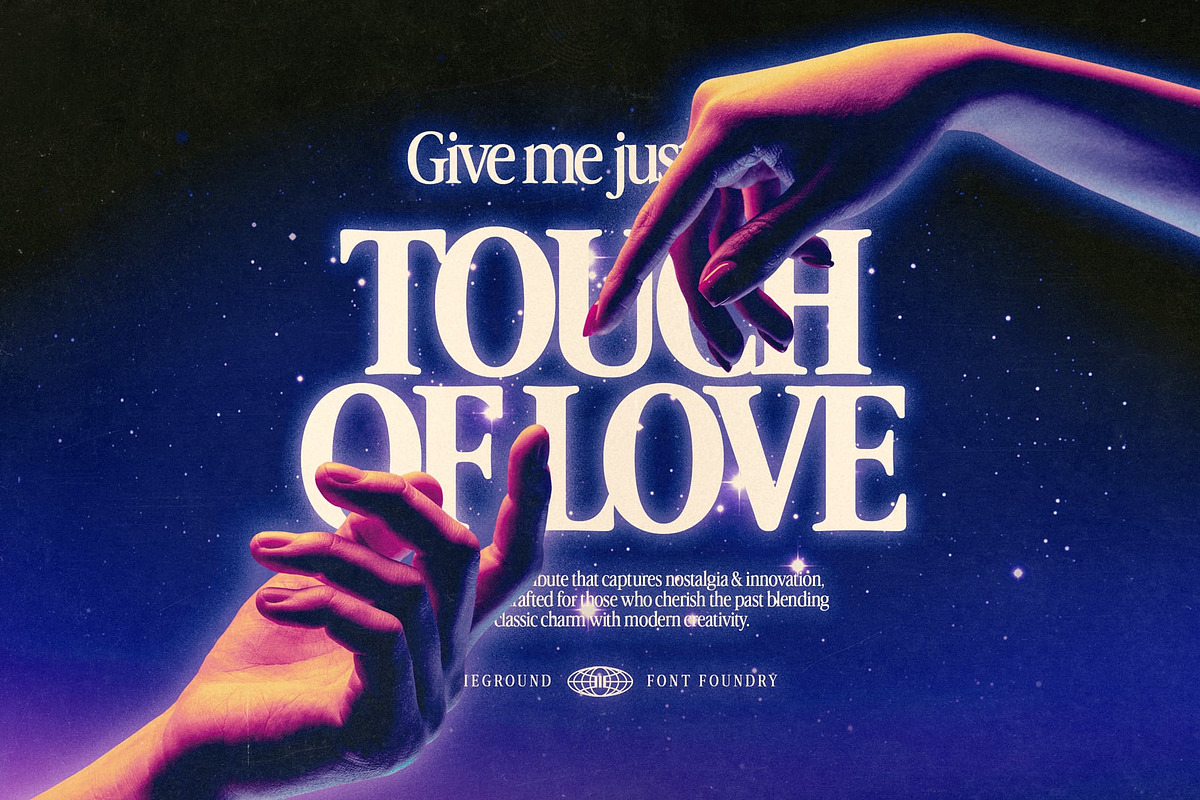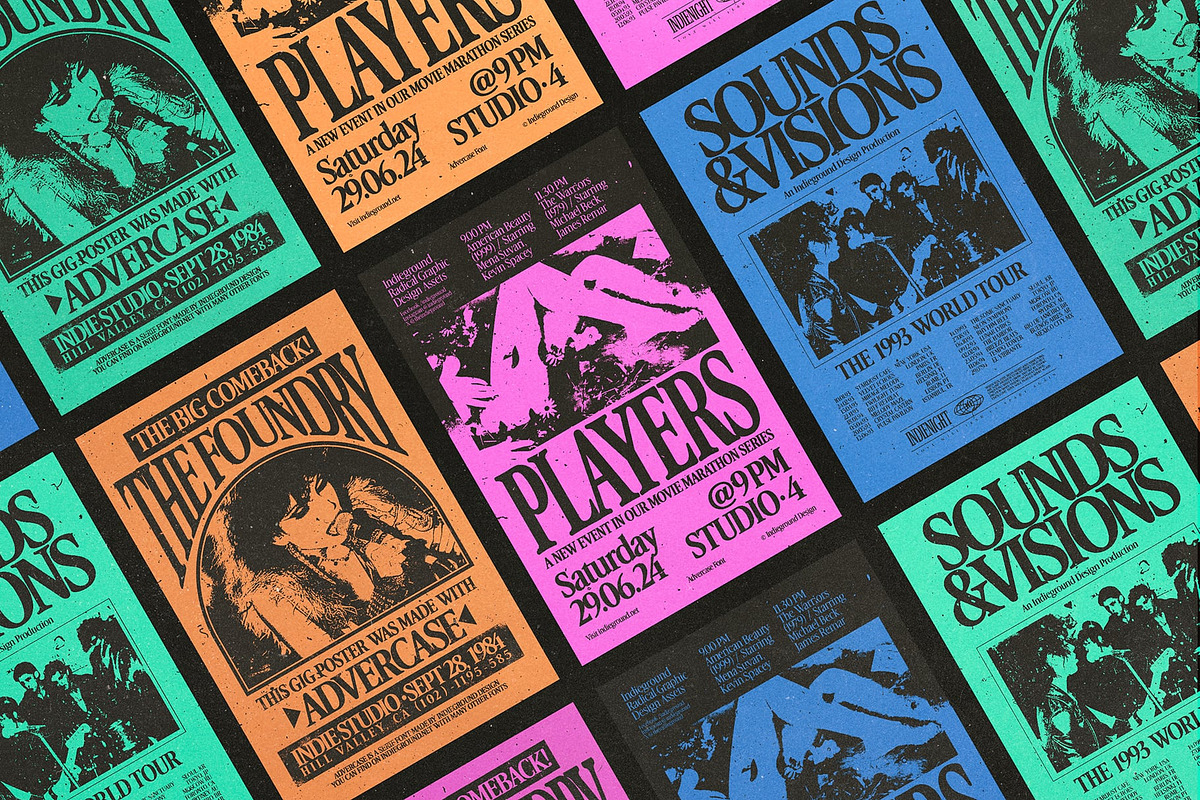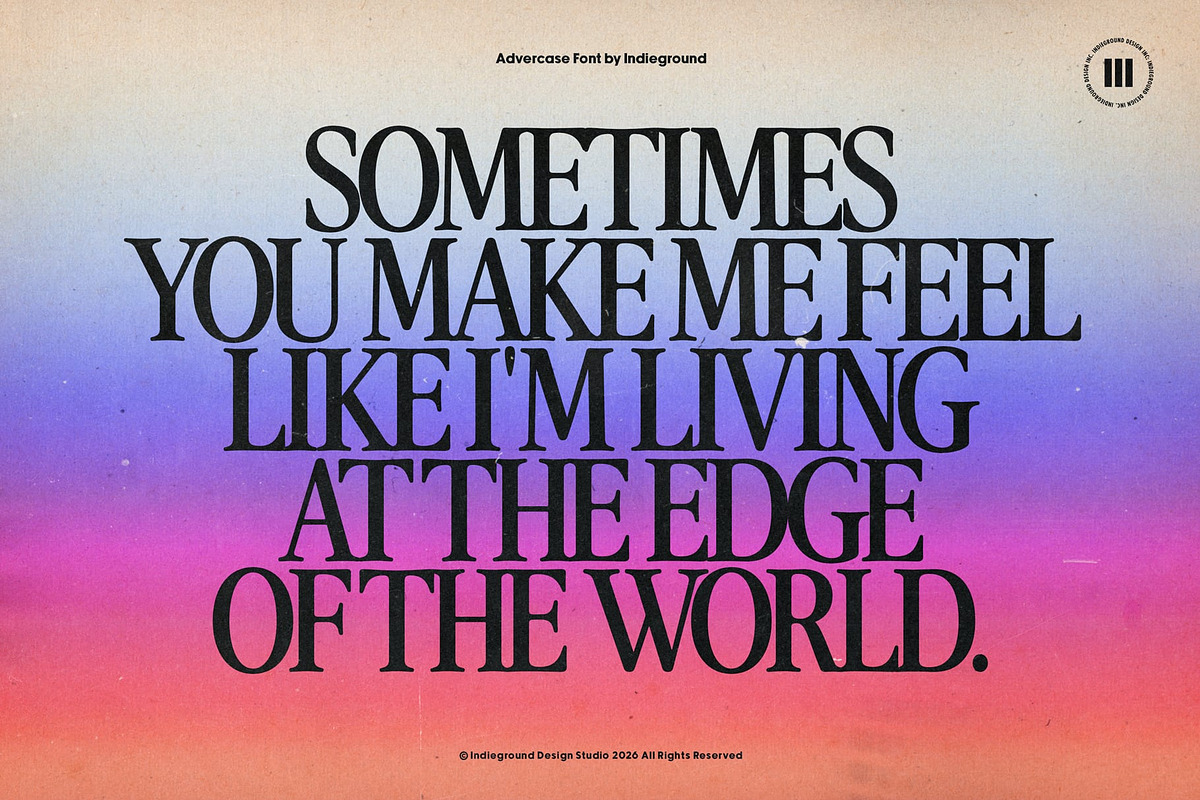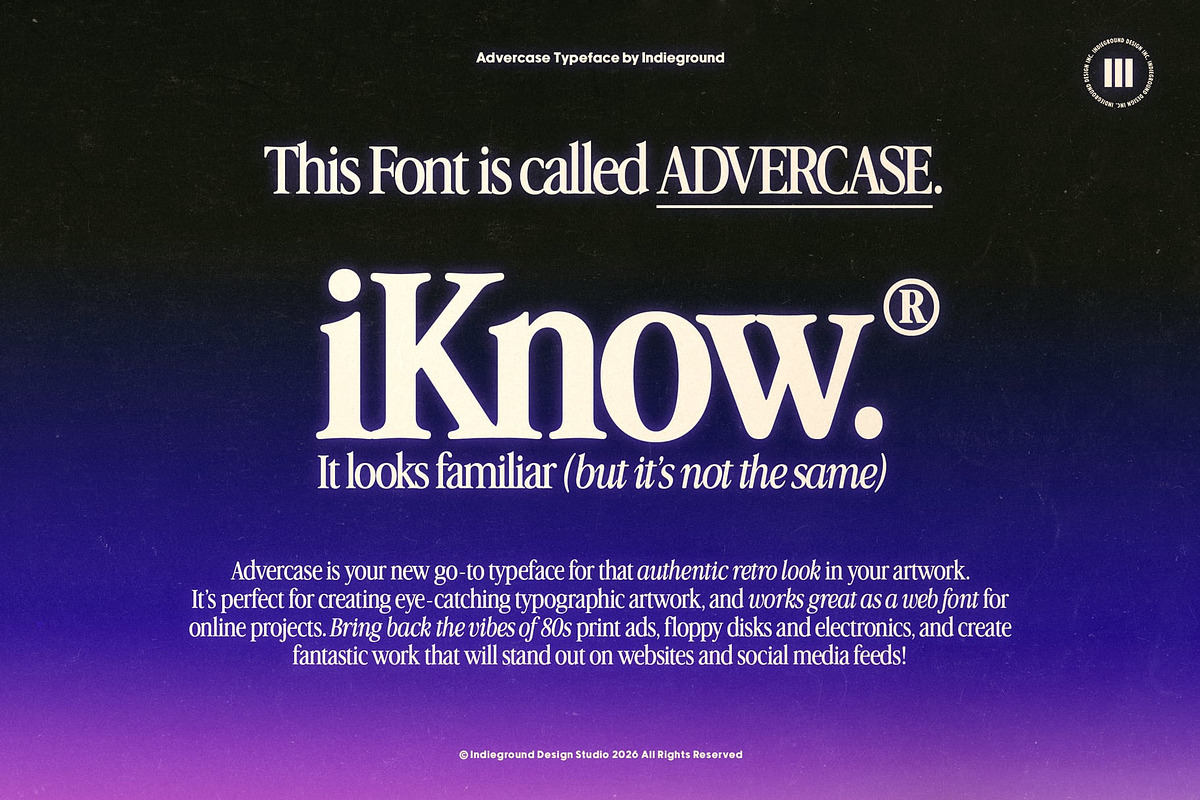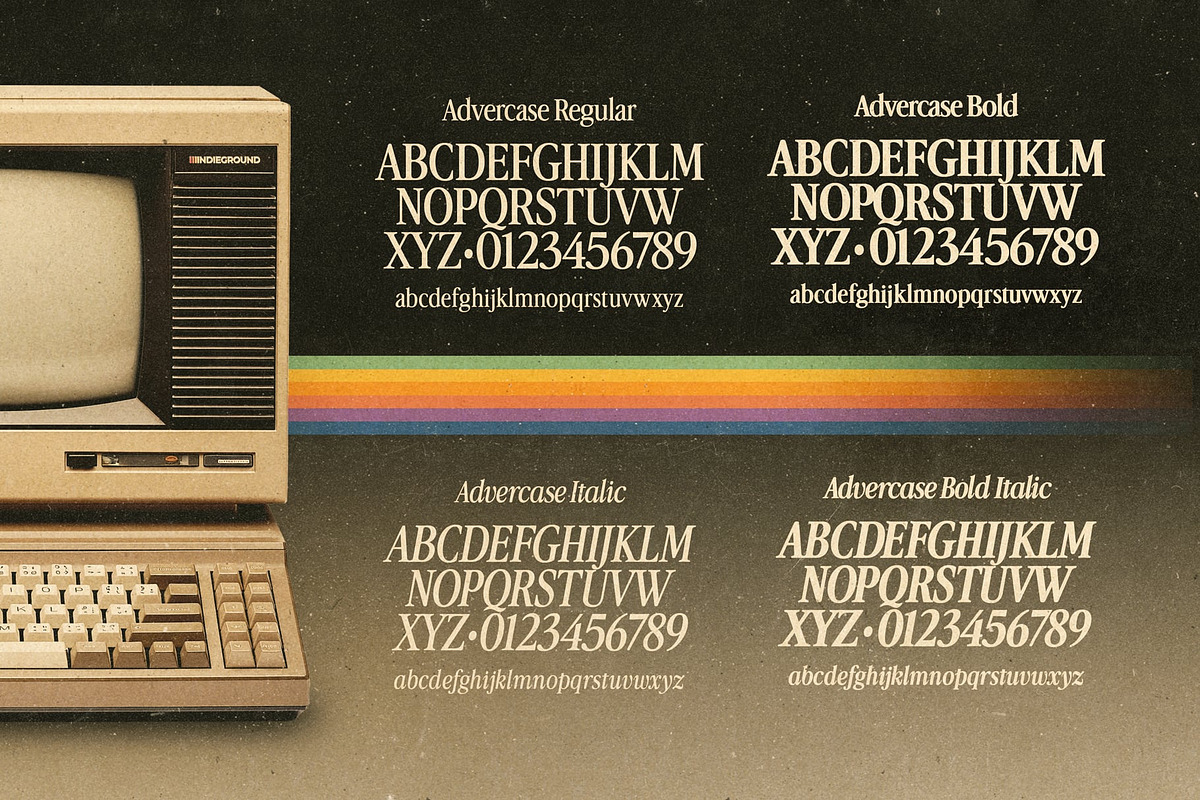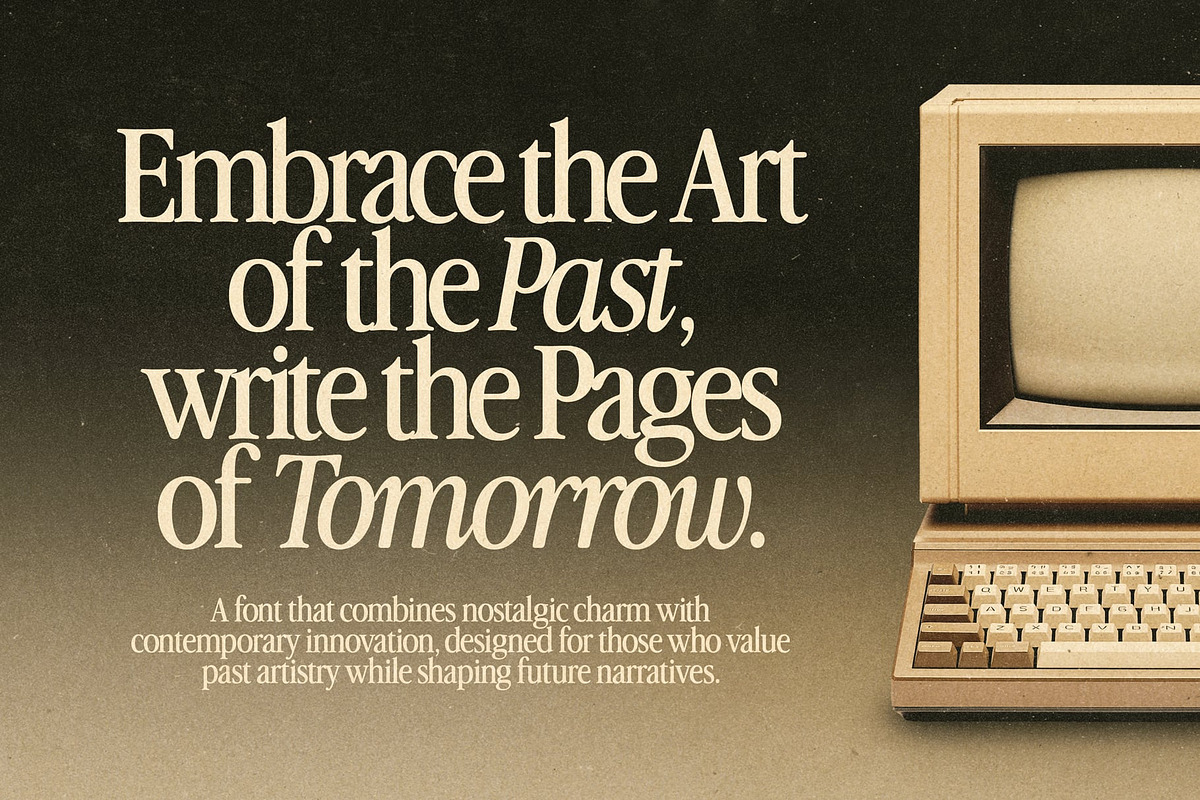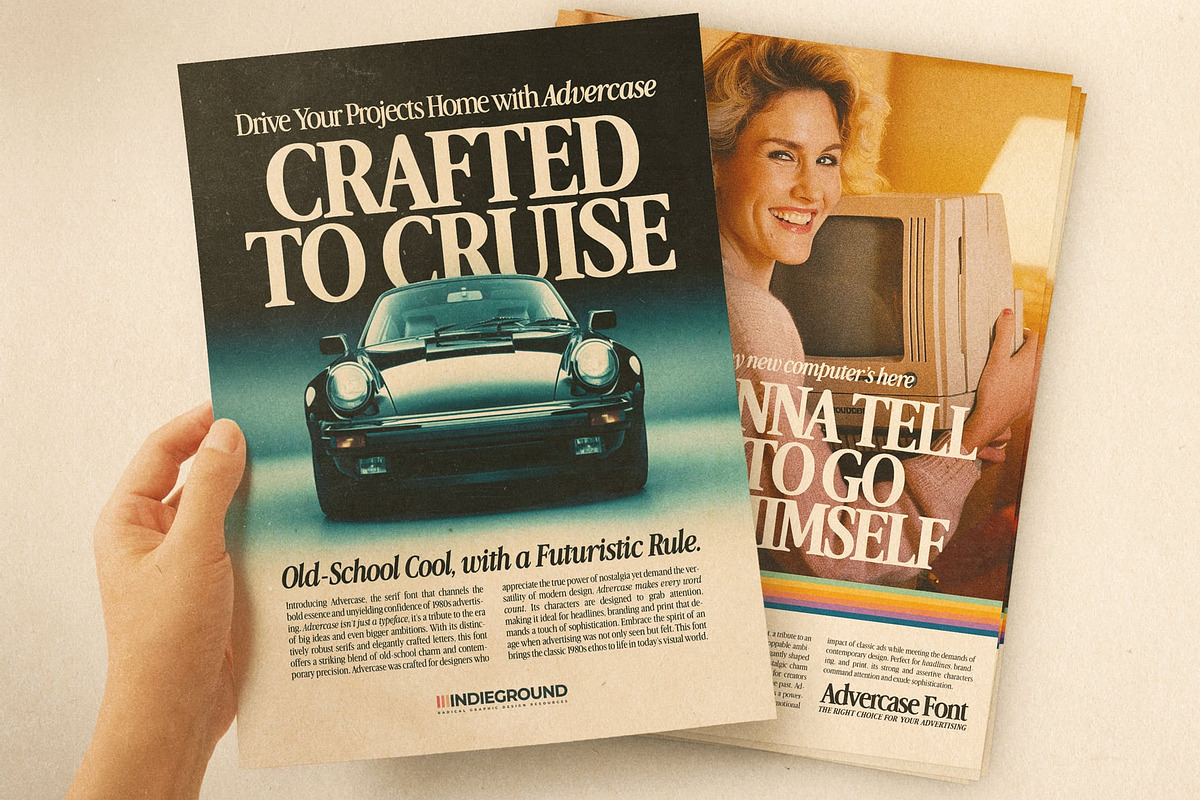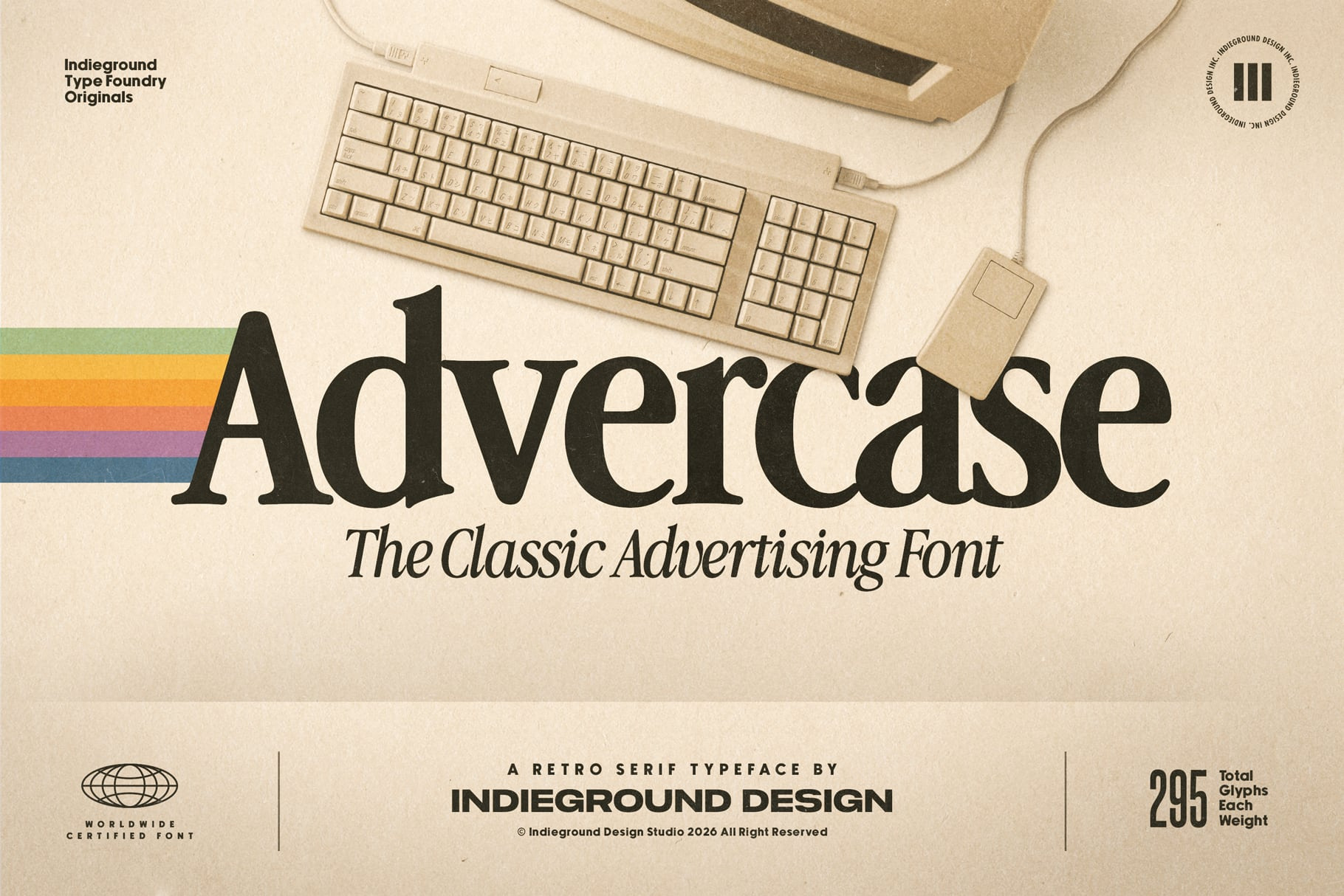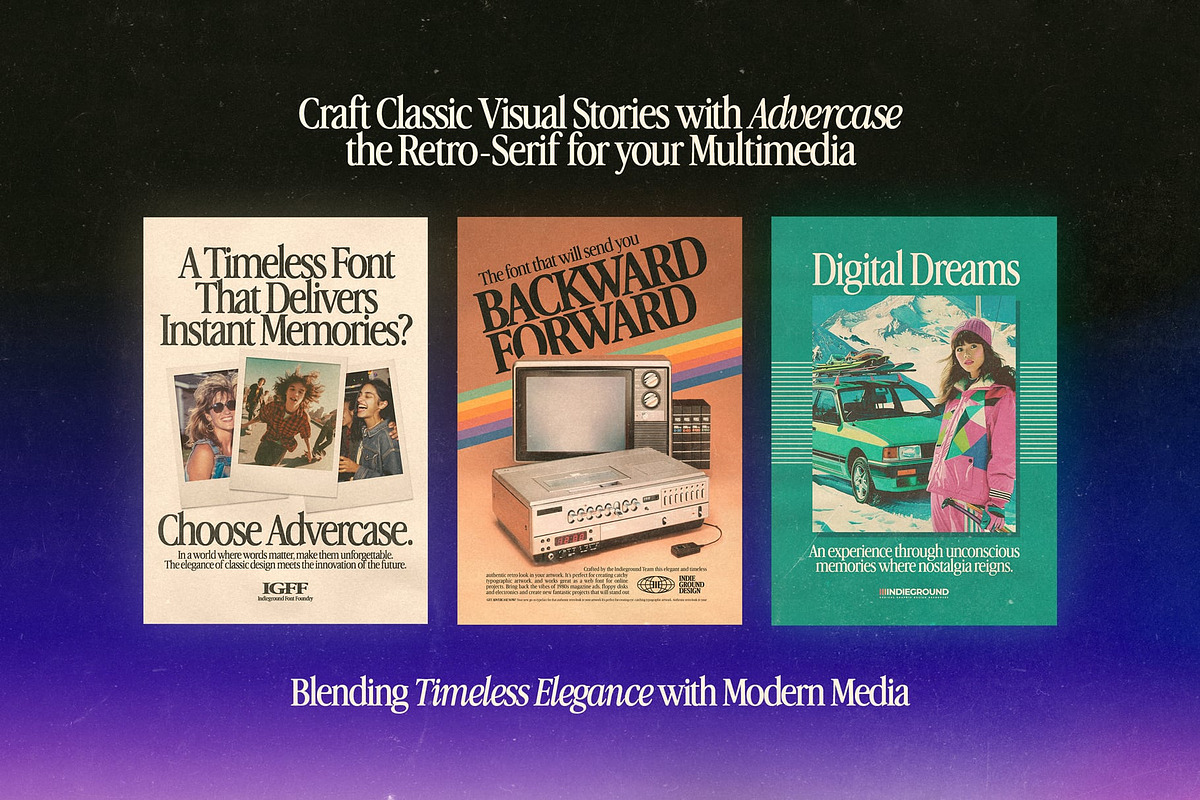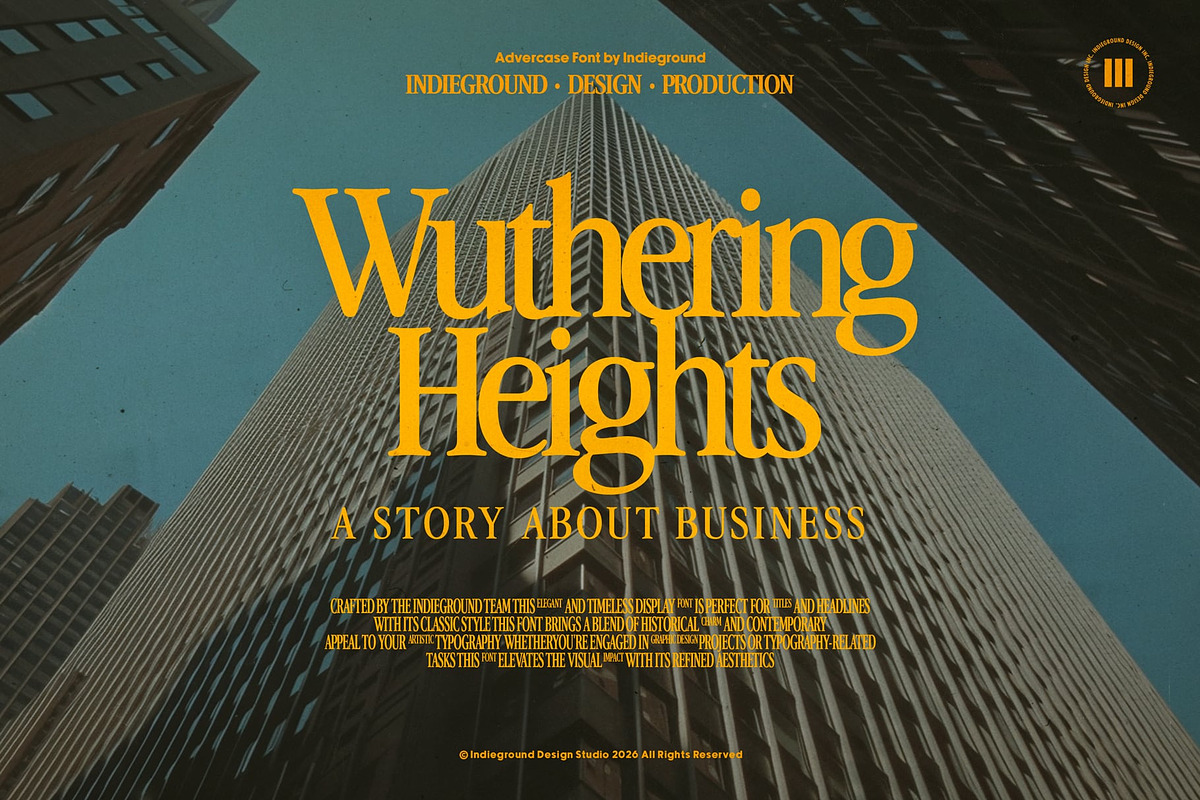
Advercase Font
Advercase Font by Indieground This elegant font will bring back the classic atmospheres of vintage ads and old personal computers! Advercase is your new go-to font for that authentic retro look in your artwork. It's perfect for creating eye-catching typographic artwork, and works great as a web font for online projects. Bring back the vibes of 80s print ads, floppy disks and electronics, and create fantastic work that will stand out on websites and social media feeds! This awesome retro font is based on Apple's Garamond adaptation and use of the typeface in their advertising campaigns during the 80s and 90s. Designed with love and attention by the Indieground Team to meet the needs of creative professionals, it offers the freedom to design anything that needs a retro, vintage feel while maintaining an elegant, contemporary edge. Adding to its versatility, it integrates into various design projects, elevating them with its unique blend of past and present aesthetics.
What do you get? A Retro Serif Font with 295 elements, including letters, numbers, special characters and glyphs.
Advercase Font offers a perfect blend of retro character and contemporary elegance, ideal for creating elegant artwork with 80s aesthetic, adding a nostalgic touch to your creative projects. If you are after creating a retro look and feel, there are more resource in our shop that will help you get results fast & easy! Check these out: